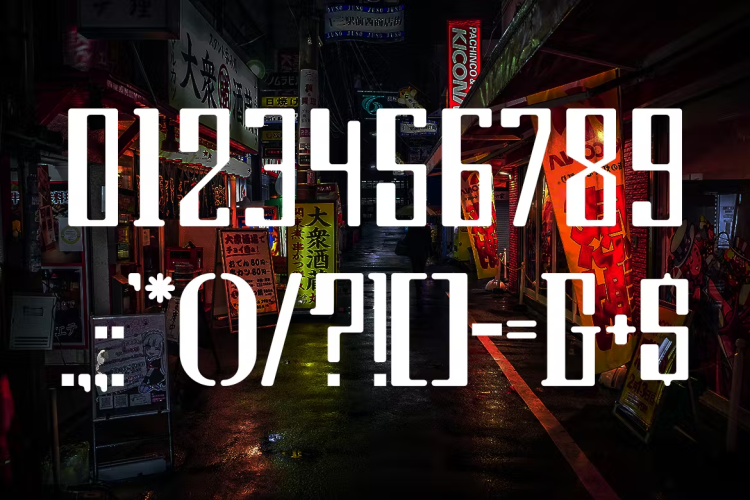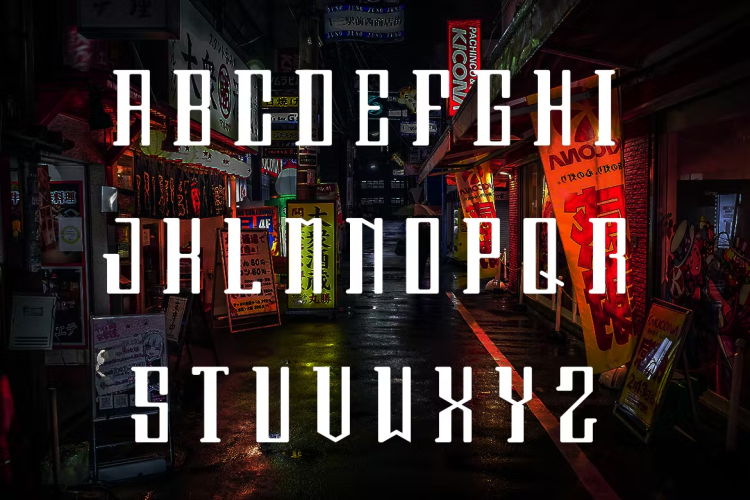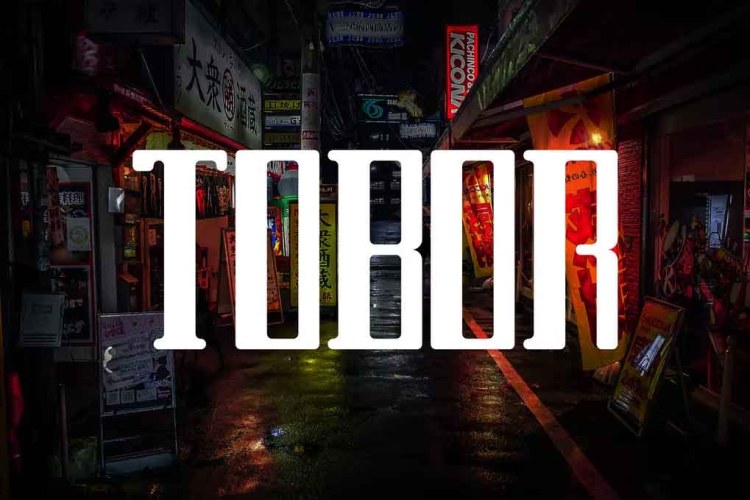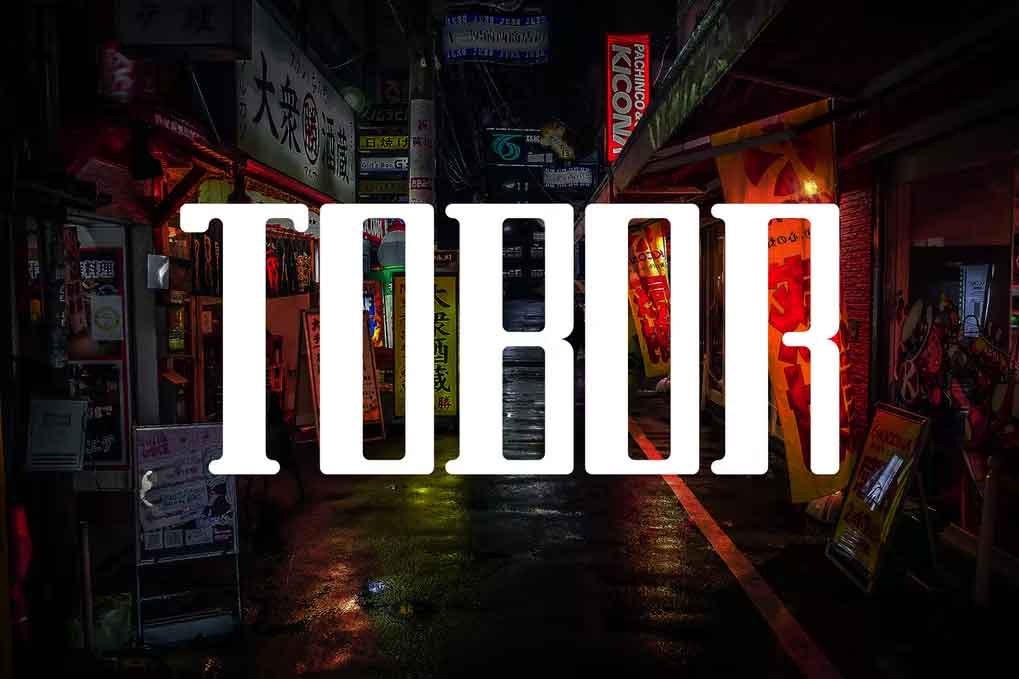
TOBOR Font
ITEM DESCRIPTION
Introducing our new product TOBOR Font – Modern Font is a bold and authentic display font. The font is suitable for any branding project like logo, t-shirt printing, esport, and many more. outstanding in a wide range of contexts.
Where TOBOR Font works best
Seasonal campaigns
TOBOR Font gives a holiday or themed promotion its own look without redrawing anything; use it for the headline only.
Party and family invitations
Decorative letters set the mood before the text is read. Pair TOBOR Font with a plain sans for the practical details.
Game and video titles
Themed lettering sells the world of a game or a channel in one frame.
What kind of work does TOBOR Font suit?
It sits in the Decorative Fonts group and reads as bold, branding, decorative, decorative fonts. That makes it a candidate wherever those qualities help: headings, packaging, social graphics and brand work. Set it at the size you plan to use before deciding.